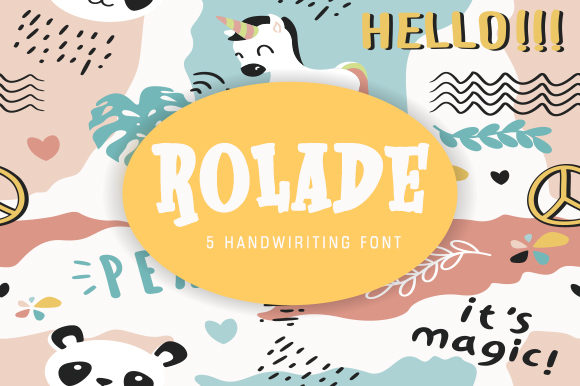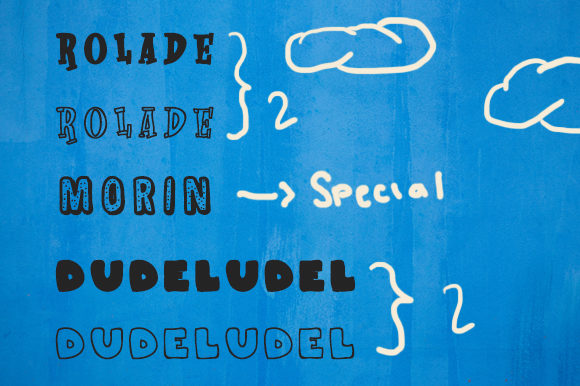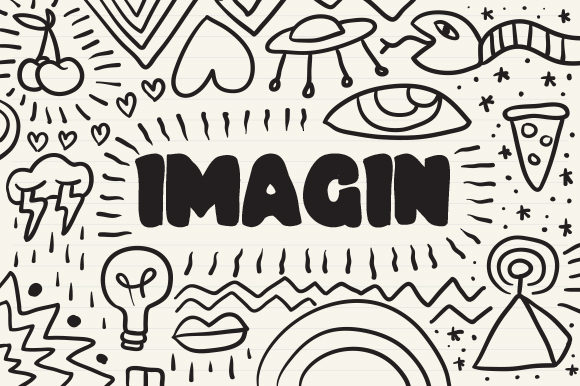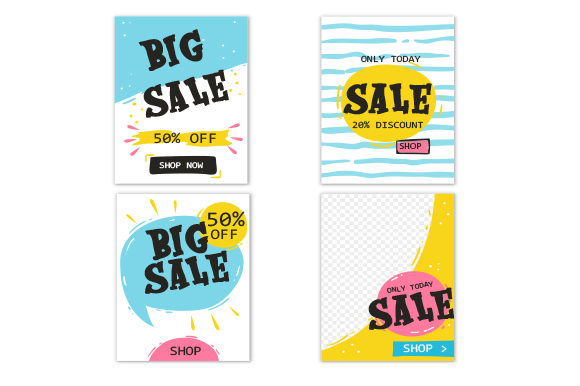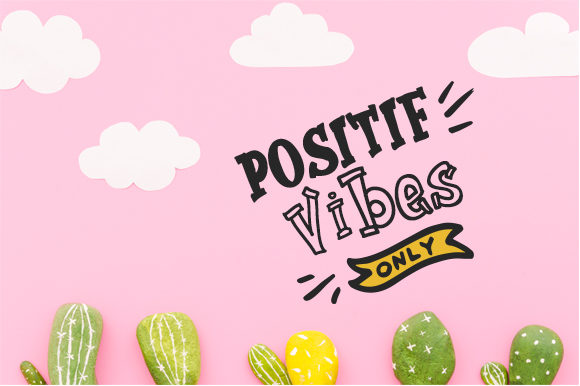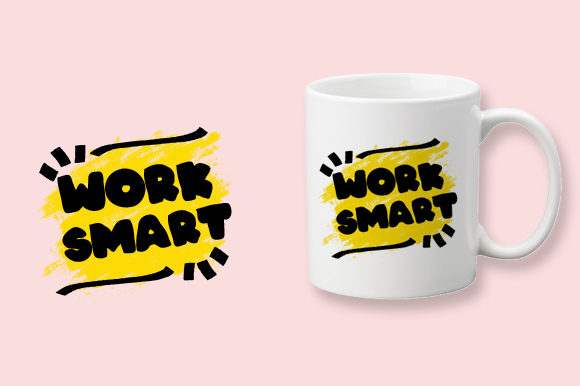
Rolade Font
About Rolade Font
Rolade combines five fun fonts that will easily turn any design idea into a stand out! Fall in love with this adorable and versatile font family!